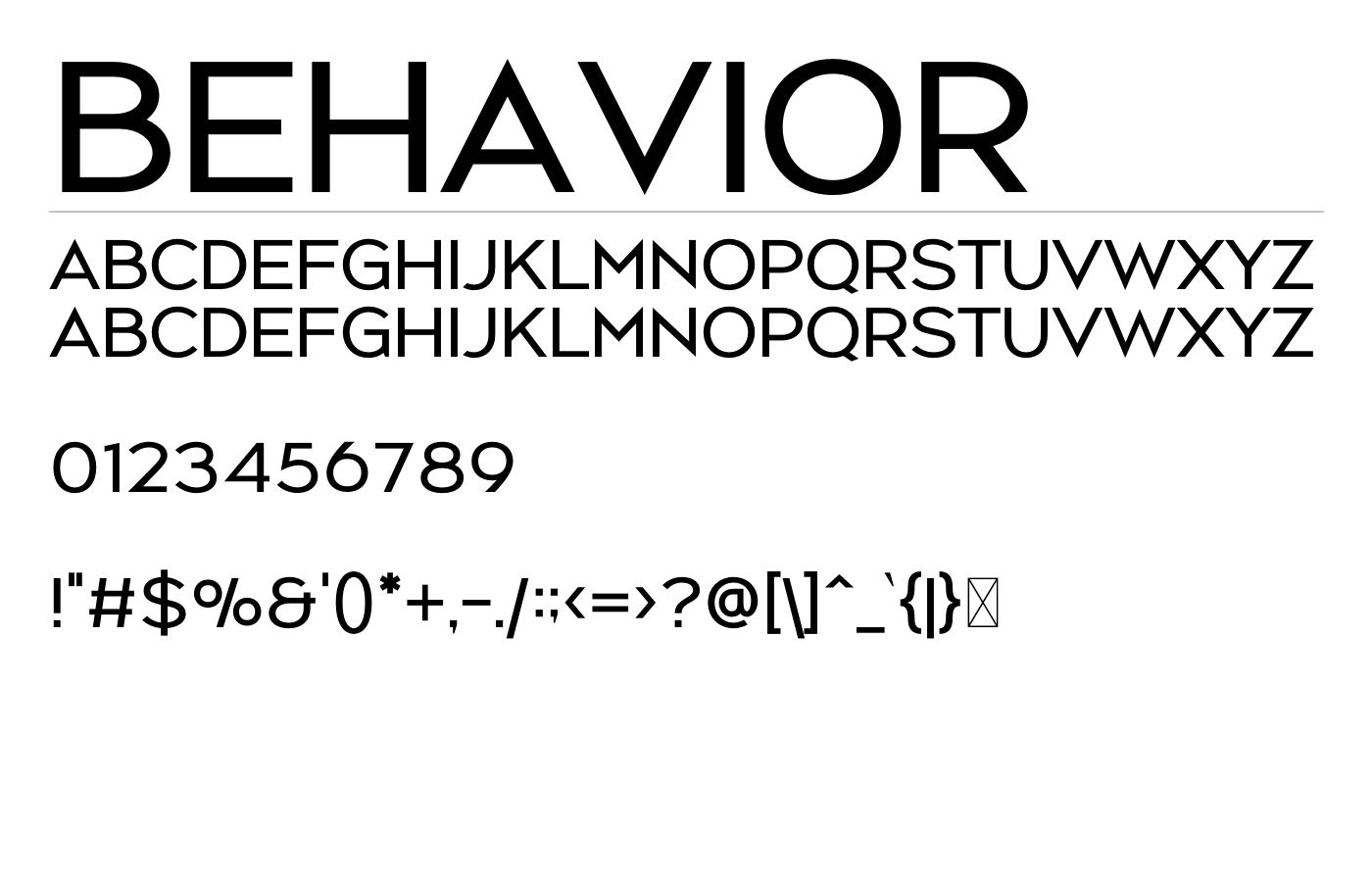
Behavior Font is a sleek, modern sans serif typeface characterized by clean lines, geometric shapes, and a balanced, consistent stroke weight that gives it a refined yet approachable appearance. Its tall x-height and open letterforms make it highly legible, ideal for contemporary branding, editorial design, and digital use where clarity and a professional tone are key. This font works well for headlines, logos, and user interfaces, lending a fresh and sophisticated feel to any project.
Behavior Font
About Behavior Font
| Designer | Brandsemut |